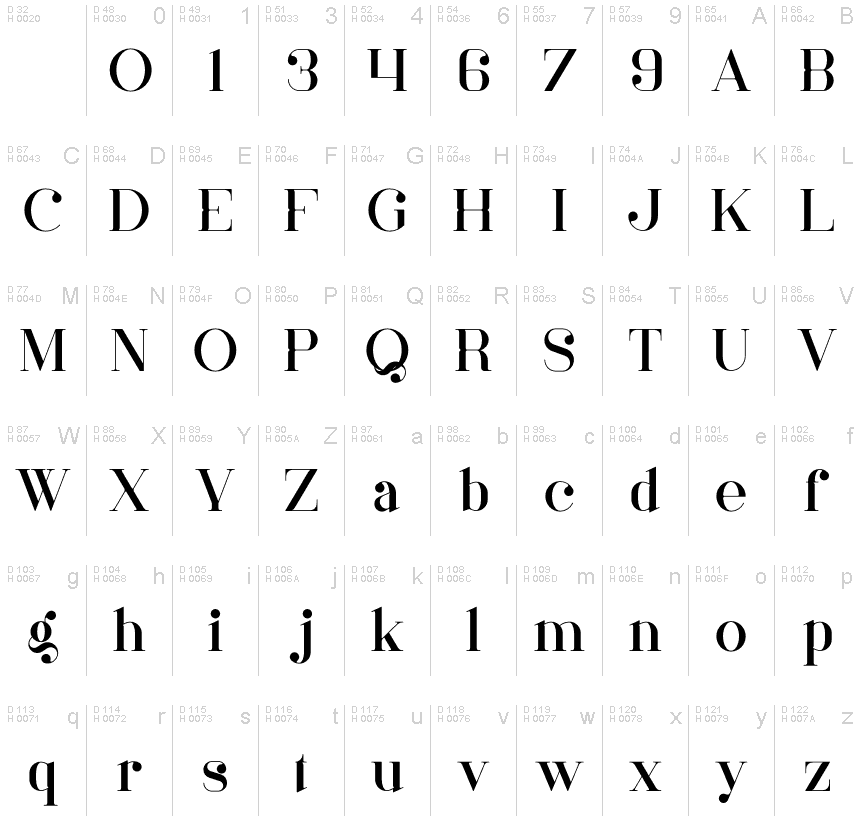
Introducing Mother Serif Typeface 5 fonts + botanical graphics
Mother is named after all the moms and children left behind.
This typeface is feminine, fragile typeface with 5 fonts loaded with ligature glyphs, alternates and multilingual support to enchant your next project. Added and frames, bouquets and floral elements. Very versatile fonts that works great in large and small sizes.
Mother is perfect for branding projects, home-ware designs, product packaging, magazine headers or simply as a stylish text overlay to any background image.
Uppercase, lowercase, numeral, punctuation & Symbol
Light
Black
ligature glyphs ab ac ad ae ag ai al am an ap ar as at au ba be bi bl bo br ca cc ce ch ci cl co cr cs ct cu da de di do dr ea ec ed ee ei el em en eo ep er es et eu fa fb ffb fh ffh fj fk ffk ft fft ga gi gl gn go gr ha he hi ho hy ic id ie il im in io ip ir is it iv ka ke la le li ll lo lu ma me mi mo mp na nc nd ni no nt oc od ol om op or os ot ou pa pe pi po ra rc rd re ri ro sh si sm sp su ta te th ti to tr ts tt ul um un ur us ut ff fi fl ffi ffl st
alternates
Multilingual support